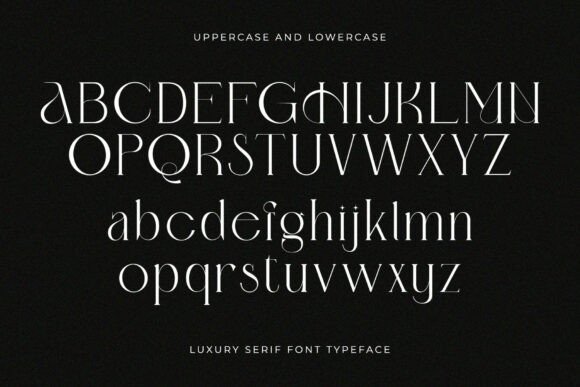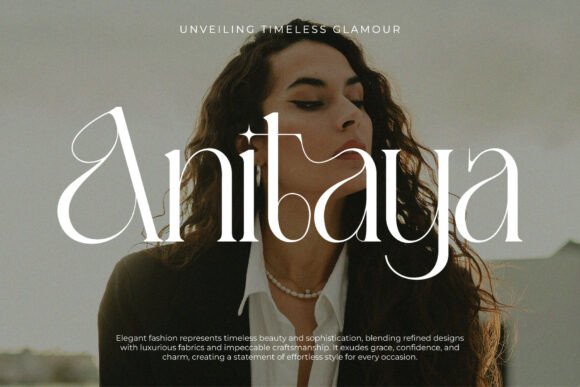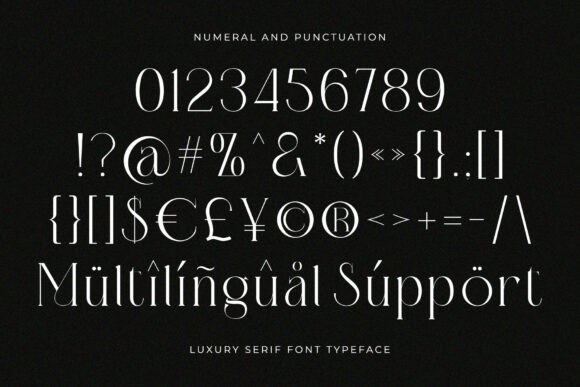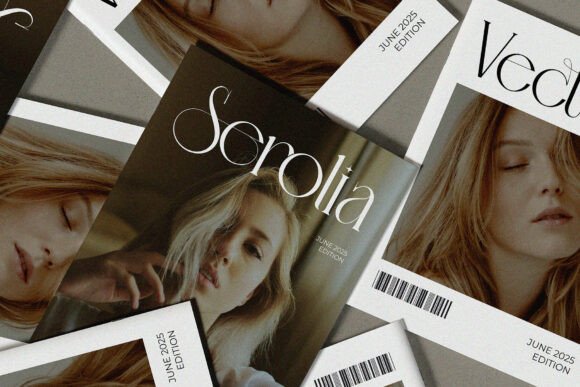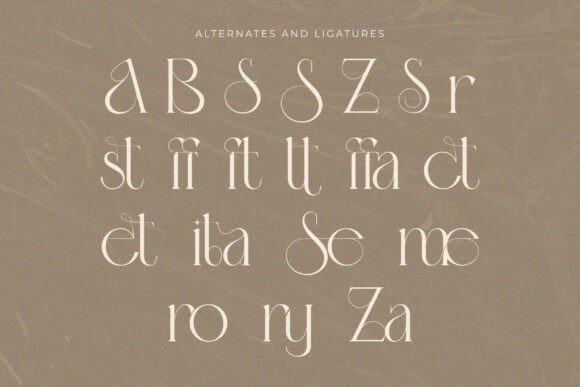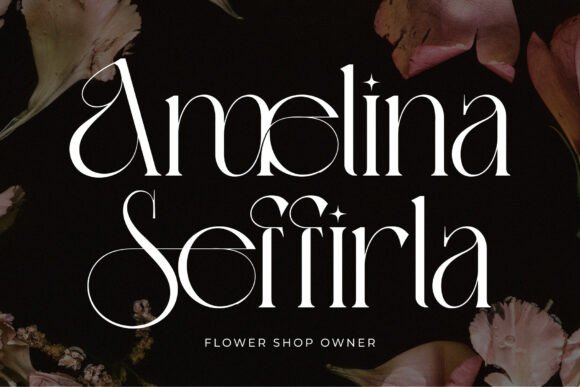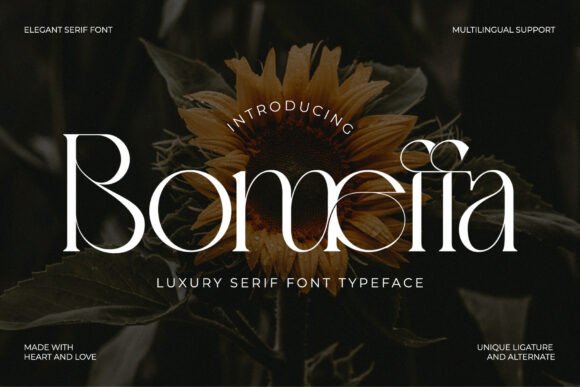
Bomeffa Regular Font: Elevate Your Designs with Elegance and Sophistication
In the world of typography, a well-crafted font can make all the difference in elevating a design from ordinary to extraordinary. Introducing Bomeffa, an elegant serif typeface that effortlessly embodies class, beauty, and timeless luxury. With its striking high-contrast strokes and graceful curves, Bomeffa is the perfect choice for designers and crafters looking to add a touch of sophistication to their work.
A Font that Exudes Elegance and Refined Luxury
Bomeffa’s design is characterized by its striking high-contrast strokes, which give the font a sense of drama and flair. The elegant curves and refined lines of the font create a sense of fluidity and movement, making it perfect for a range of sophisticated applications. Whether you’re working on a branding project, fashion editorial, magazine layout, packaging, or wedding stationery, Bomeffa is sure to impress.
Stylish Ligatures and Alternate Characters
One of the standout features of Bomeffa is its stylish ligatures and alternate characters. These special characters are designed to add an extra touch of elegance and sophistication to your designs. With ligatures, you can create beautiful connections between letters, while the alternate characters provide a range of options for customizing your text. Whether you’re looking to create a unique logo or add some flair to your typography, Bomeffa’s ligatures and alternate characters have got you covered.
Multilingual Character Support
In today’s global design landscape, it’s more important than ever to have a font that can support multiple languages. Bomeffa boasts multilingual character support, making it a versatile choice for designers working on international projects. With Bomeffa, you can create beautiful text in a range of languages, from English and French to Spanish, German, and beyond.
Perfect for a Range of Applications
Bomeffa is a versatile font that can be used in a range of applications, including:
- Branding: Create a luxurious and sophisticated brand identity with Bomeffa’s elegant serif design.
- Fashion Editorials: Add a touch of glamour and sophistication to your fashion editorials with Bomeffa’s stylish ligatures and alternate characters.
- Magazine Layouts: Use Bomeffa to create beautiful and elegant magazine layouts that are sure to impress.
- Packaging: Elevate your packaging designs with Bomeffa’s refined serif design and stylish ligatures.
- Wedding Stationery: Create beautiful and elegant wedding stationery with Bomeffa’s elegant serif design and multilingual character support.
Bringing Sophistication and Creative Flair to Your Designs
Bomeffa is more than just a font – it’s a design tool that can help you bring sophistication and creative flair to your work. With its elegant serif design, stylish ligatures, and multilingual character support, Bomeffa is the perfect choice for designers and crafters looking to elevate their designs. Whether you’re working on a high-end branding project or a beautiful wedding stationery design, Bomeffa is sure to impress.
In conclusion, Bomeffa Regular Font is a refined serif typeface that effortlessly embodies class, beauty, and timeless luxury. With its striking high-contrast strokes, elegant curves, and stylish ligatures, Bomeffa is the perfect choice for designers and crafters looking to add a touch of sophistication to their work. Whether you’re working on a branding project, fashion editorial, magazine layout, packaging, or wedding stationery, Bomeffa is sure to elevate your designs and bring a touch of elegance and refinement to your work.